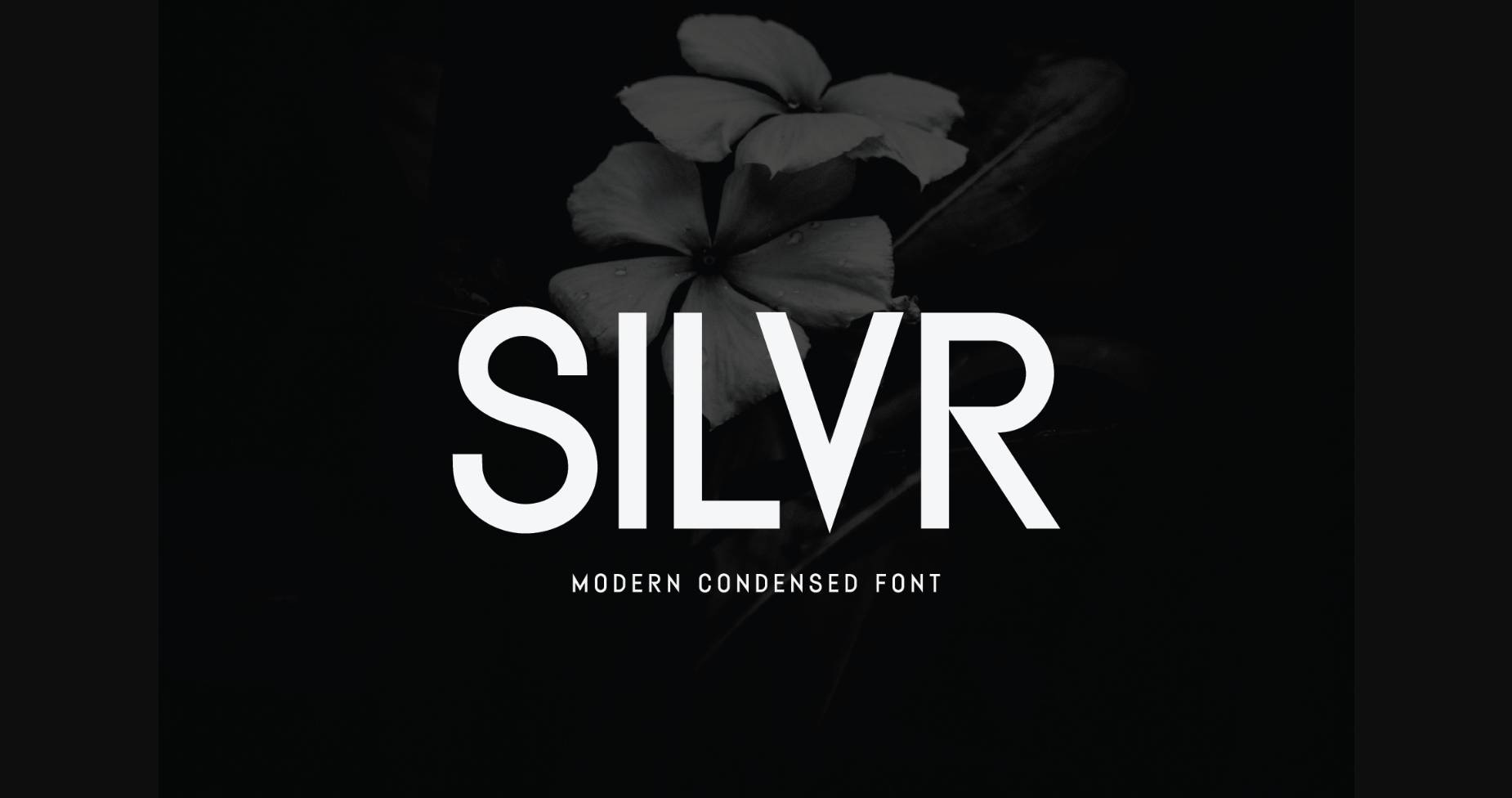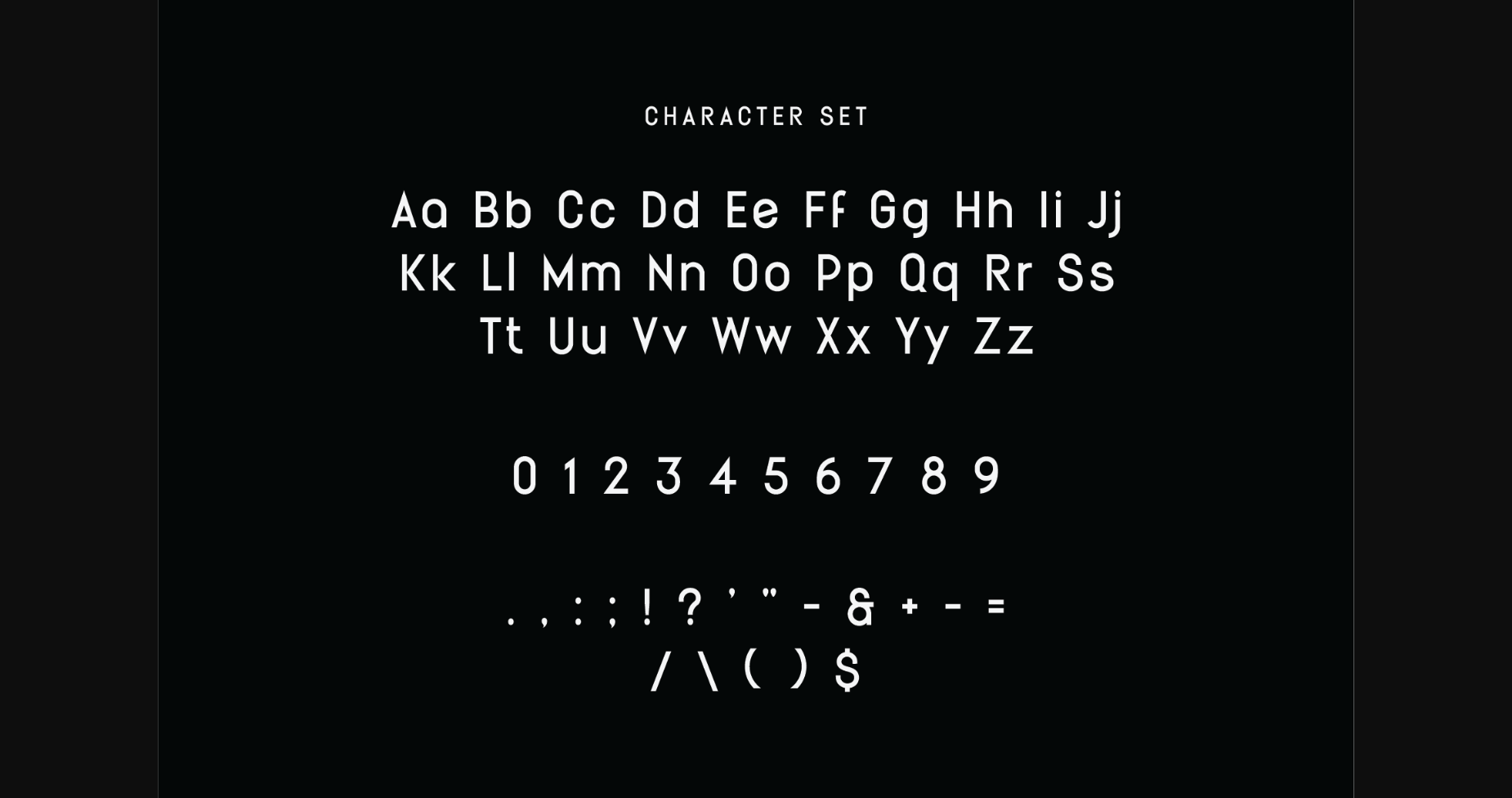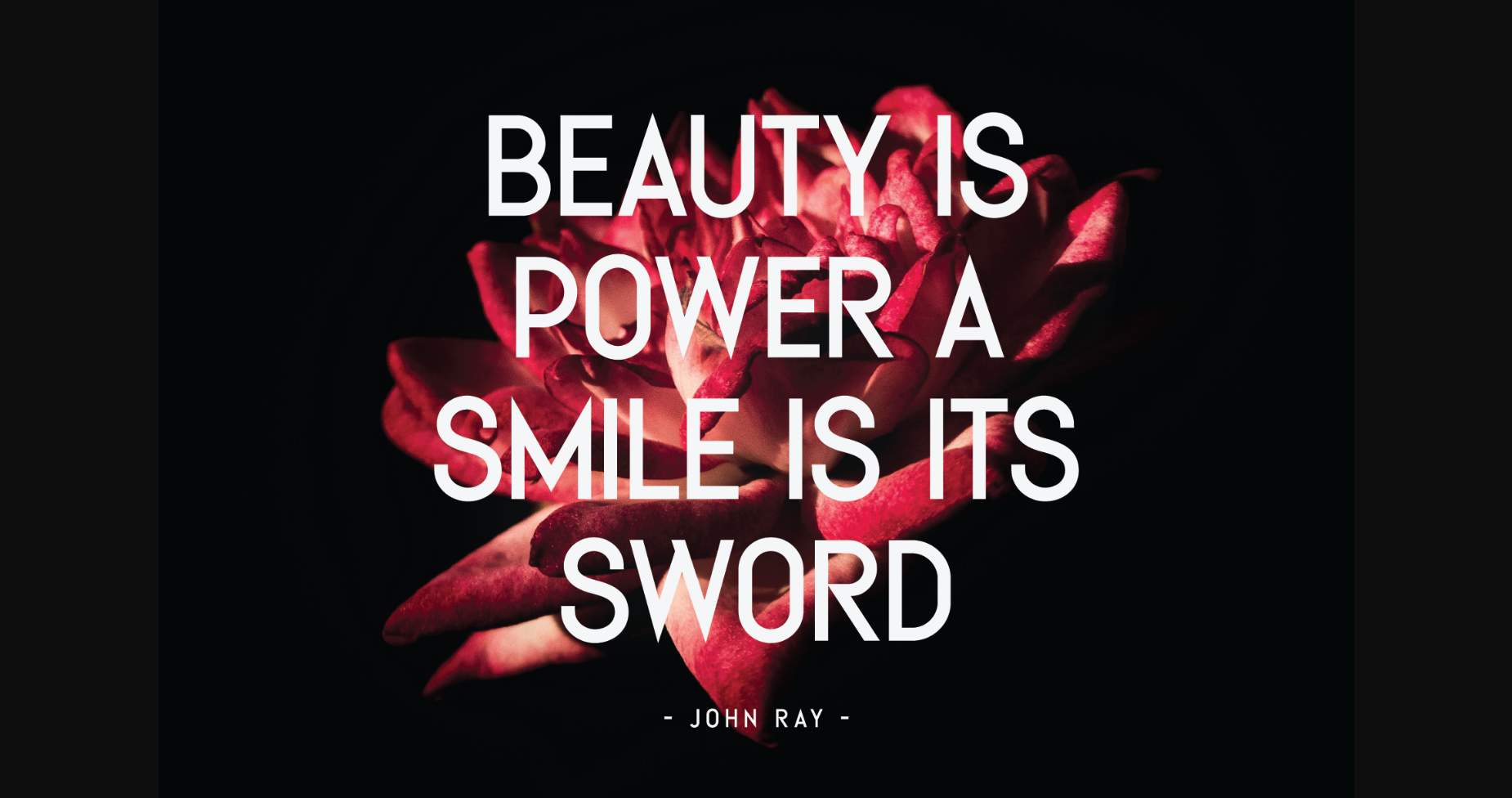
About Silvr Font
Silvr is a clean, modern, and condensed font, with the right amount of height that gives a luxury feel to your design, this modern condensed sans serif is the perfect choice for titles, headers, social media posts, posters, quotes, banners, and so on.